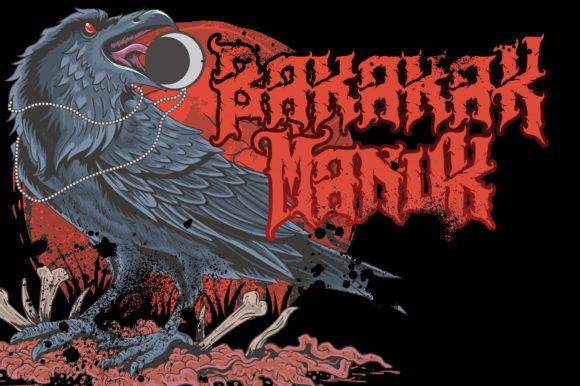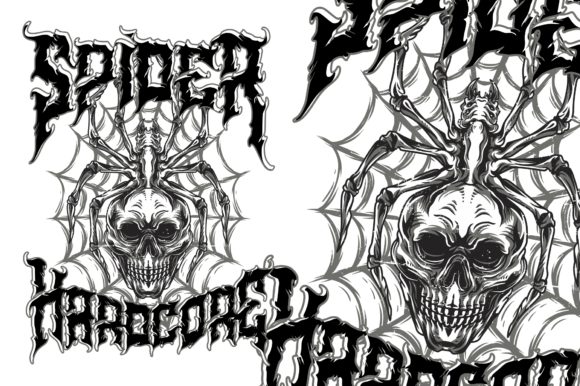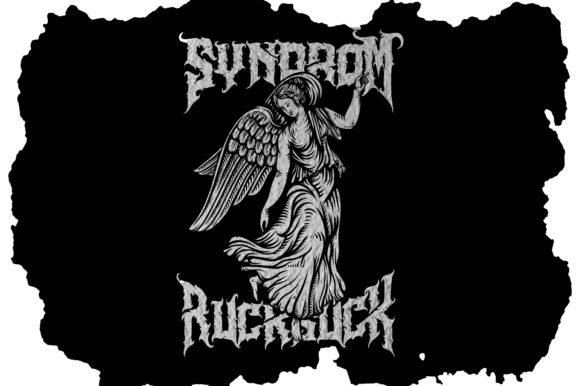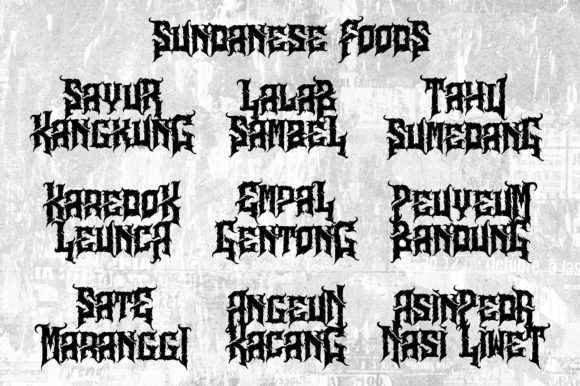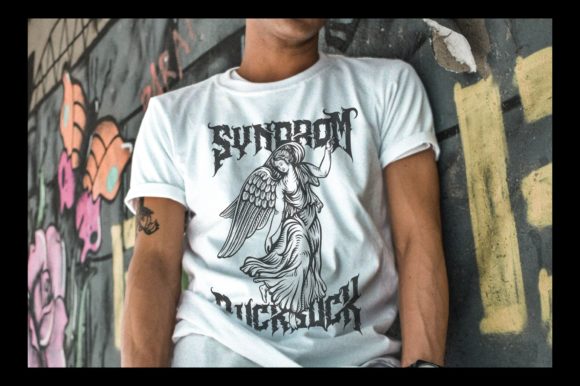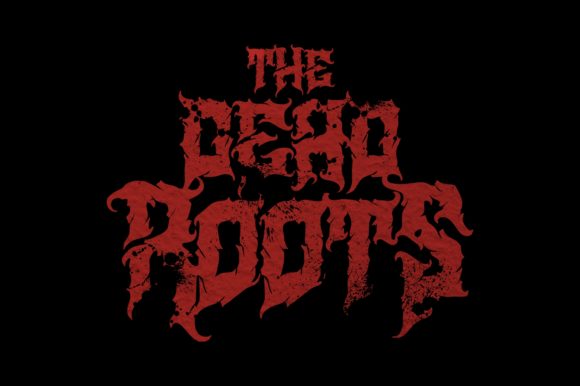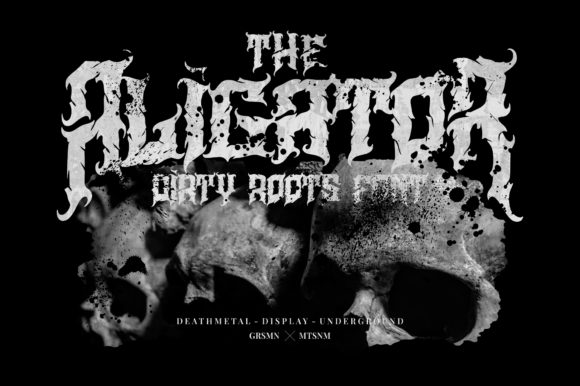
The Aligator Font: A Quirky Blackletter Standout
I’ll never forget the design project that led me to discover the Aligator font. I was working on a branding campaign for a boutique craft brewery, and I needed a font that would capture the quirky, small-batch essence of their beers. After hours of scouring font libraries and trying out various combinations, I stumbled upon Aligator – and it was love at first sight! 💡
This blackletter font embodies the perfect blend of quirkiness and authenticity, instantly elevating my design from ordinary to extraordinary. If you’re a designer, crafter, or creative hobbyist looking to add some personality to your projects, you’re in for a treat. Let’s dive into the world of Aligator and explore what makes it so special.
An Honest Review of Aligator
• Unique, eye-catching letterforms that demand attention ✅
• Perfect blend of elegance and playfulness 🎨
• Highly versatile – works well for titles, headings, and short paragraphs 📄
• Extensive character set, including glyphs and stylistic alternates 🔍
• May not be the best fit for body text or long-form content ⚠️
• Some characters may require manual kerning for optimal spacing 🔧
The Designer Inspiration Behind Aligator
According to its creators, Aligator was inspired by the classic blackletter fonts of the Middle Ages, with a modern twist. The designers aimed to craft a font that would be both elegant and quirky, perfect for creative projects that demand attention. Whether or not that’s true, one thing is certain – Aligator is a true standout in the world of typography! 🎉
Q: What type of projects is Aligator best suited for?
Aligator is perfect for creative projects that require a bold, eye-catching font, such as titles, headings, and short paragraphs. It’s ideal for branding, packaging, and advertising projects that need a touch of quirkiness.
Q: Is Aligator a difficult font to read?
Aligator is a blackletter font, which can be more challenging to read than other font styles. However, its letterforms are carefully crafted to be legible, making it suitable for short paragraphs and headings. For longer content, you may want to consider a more traditional font.